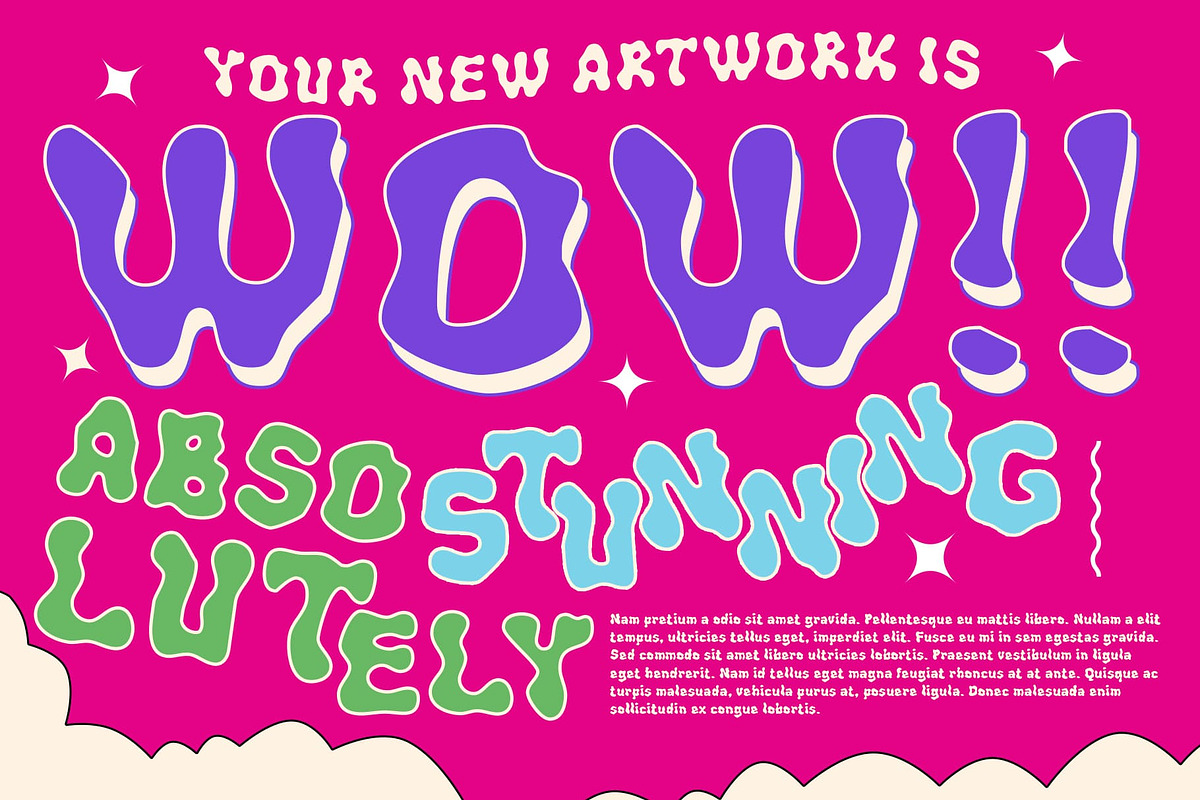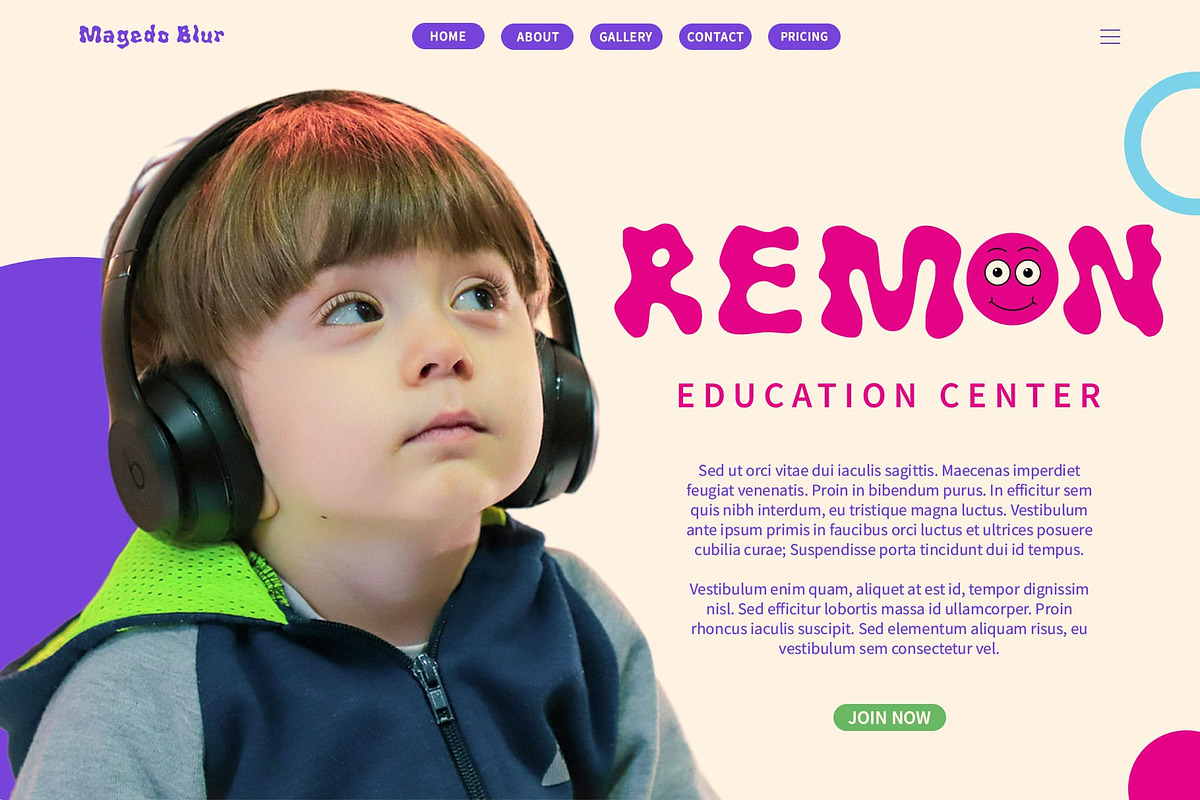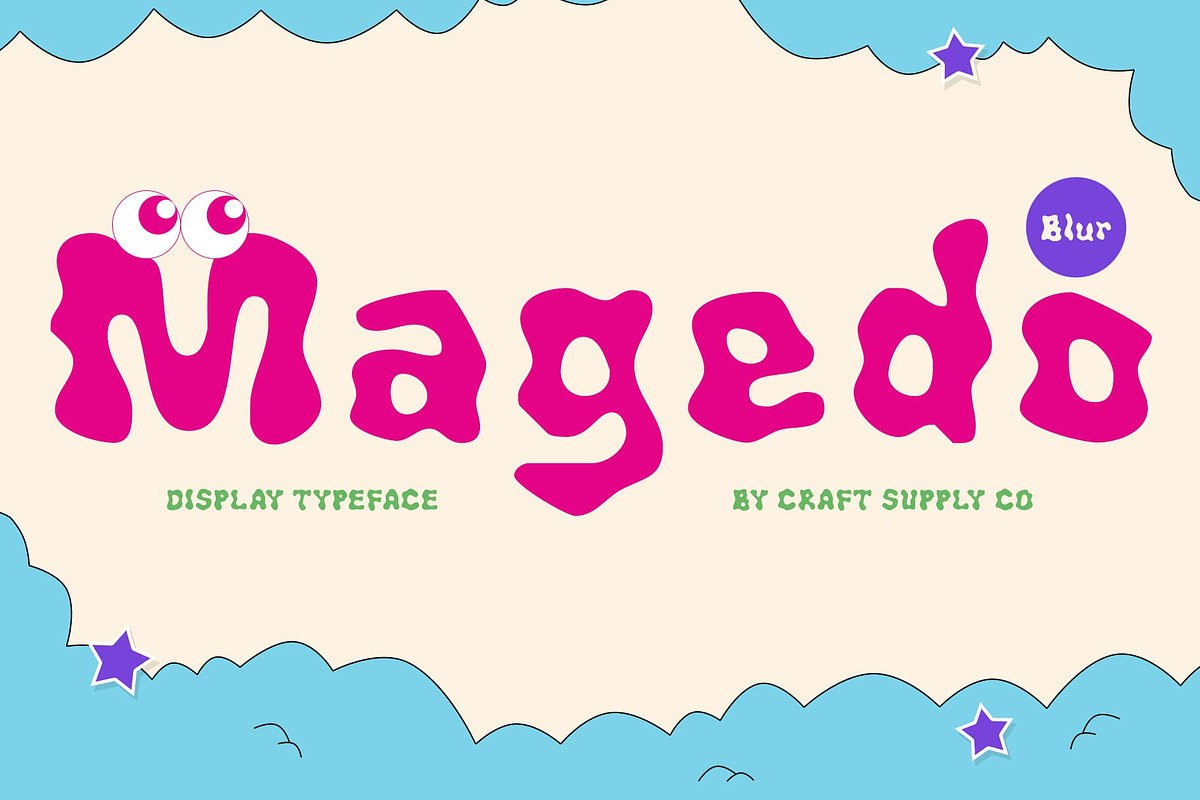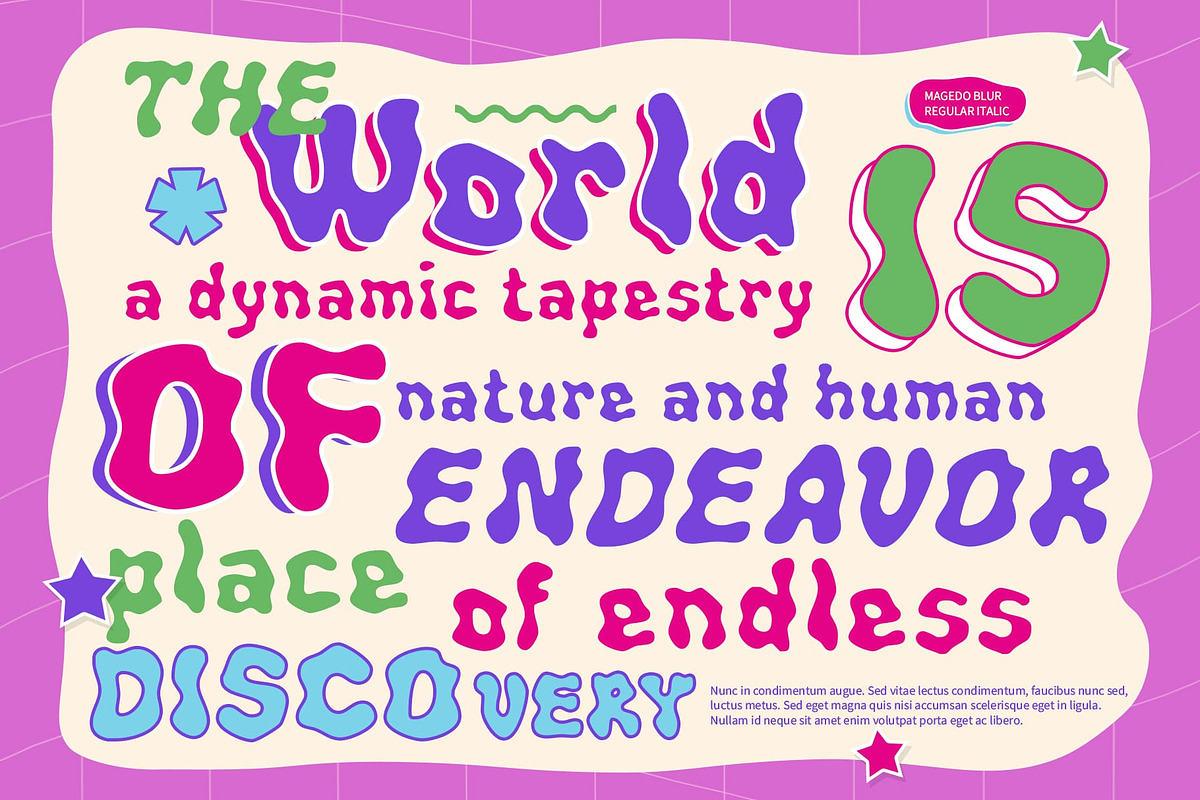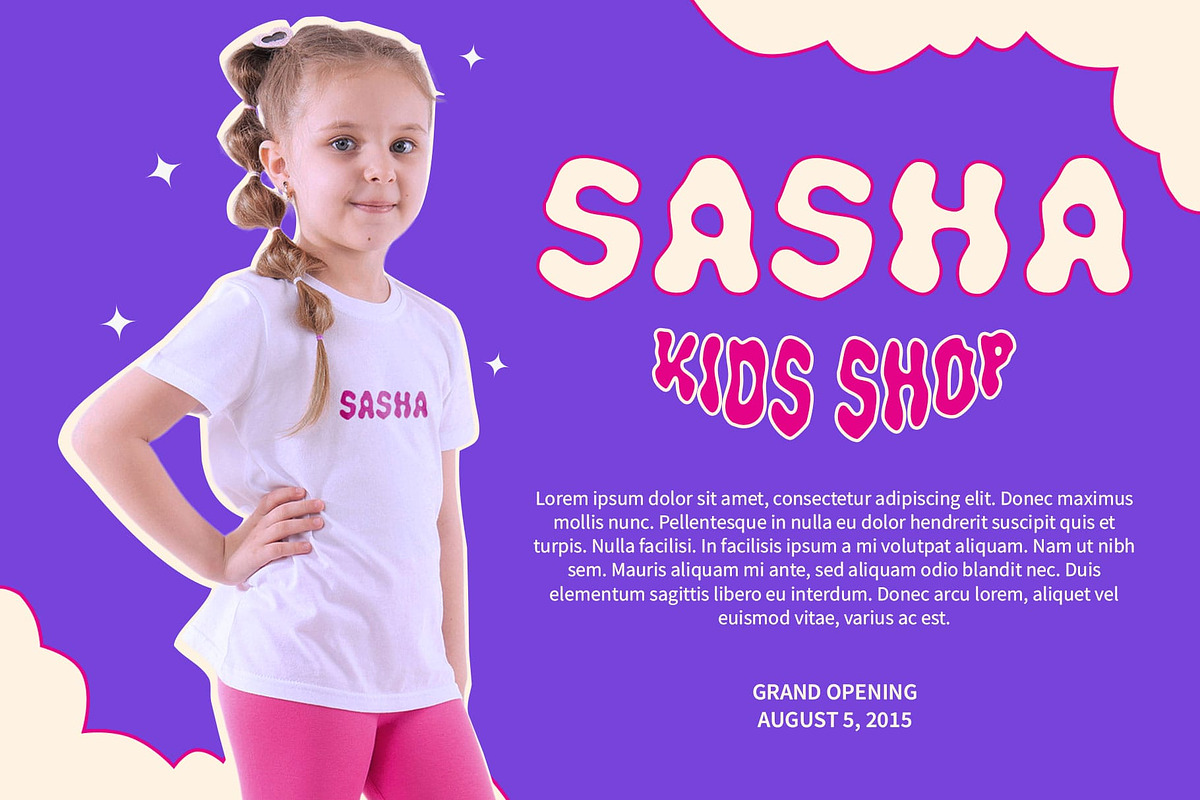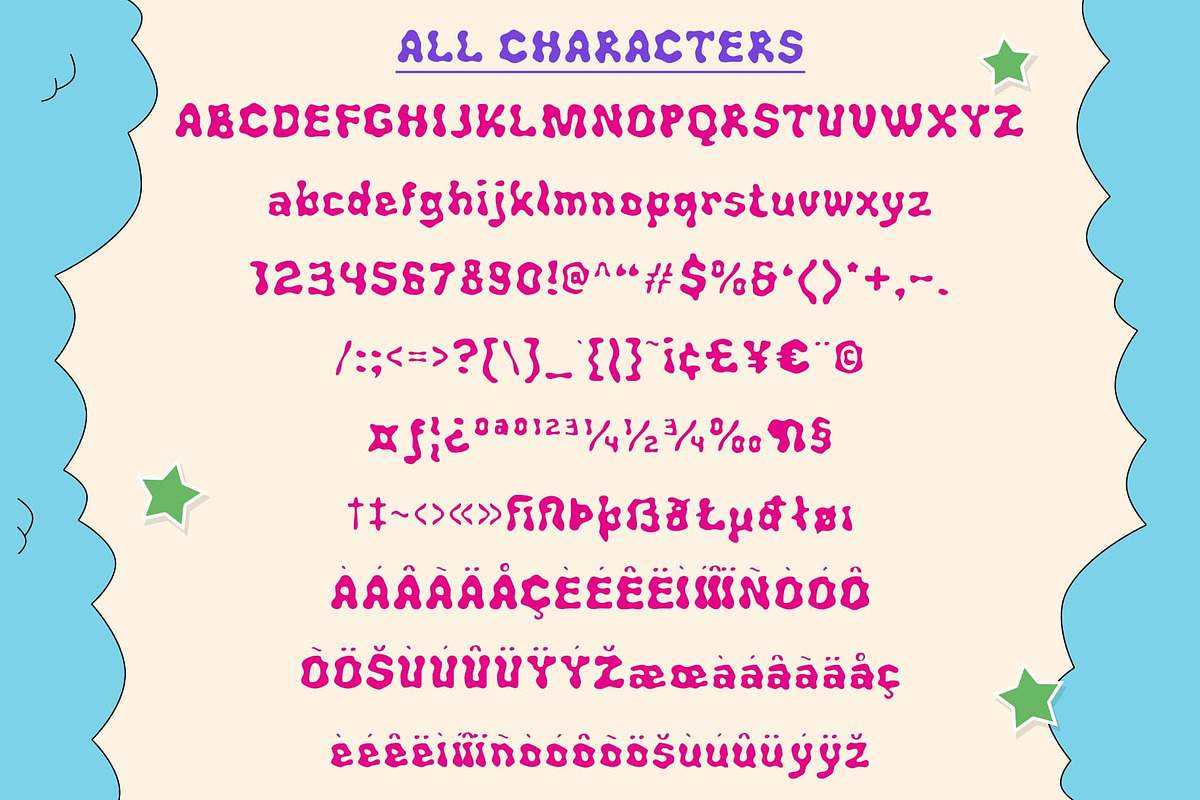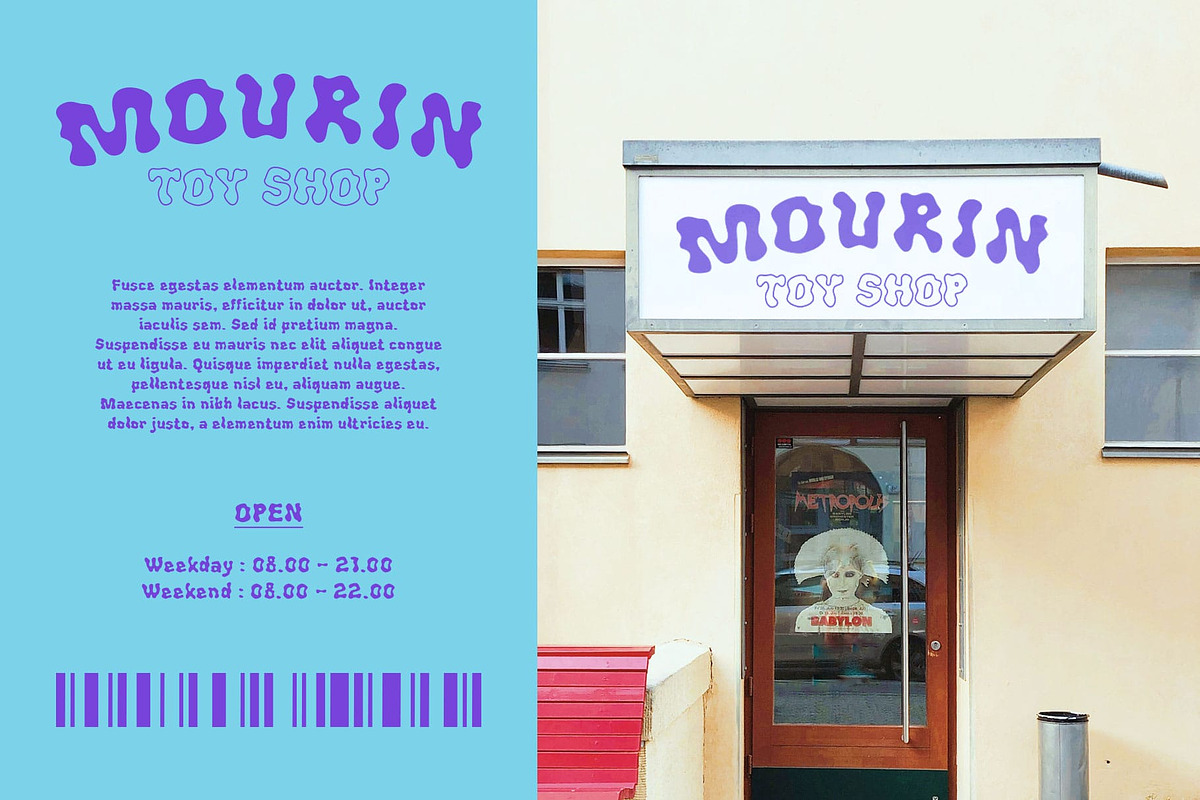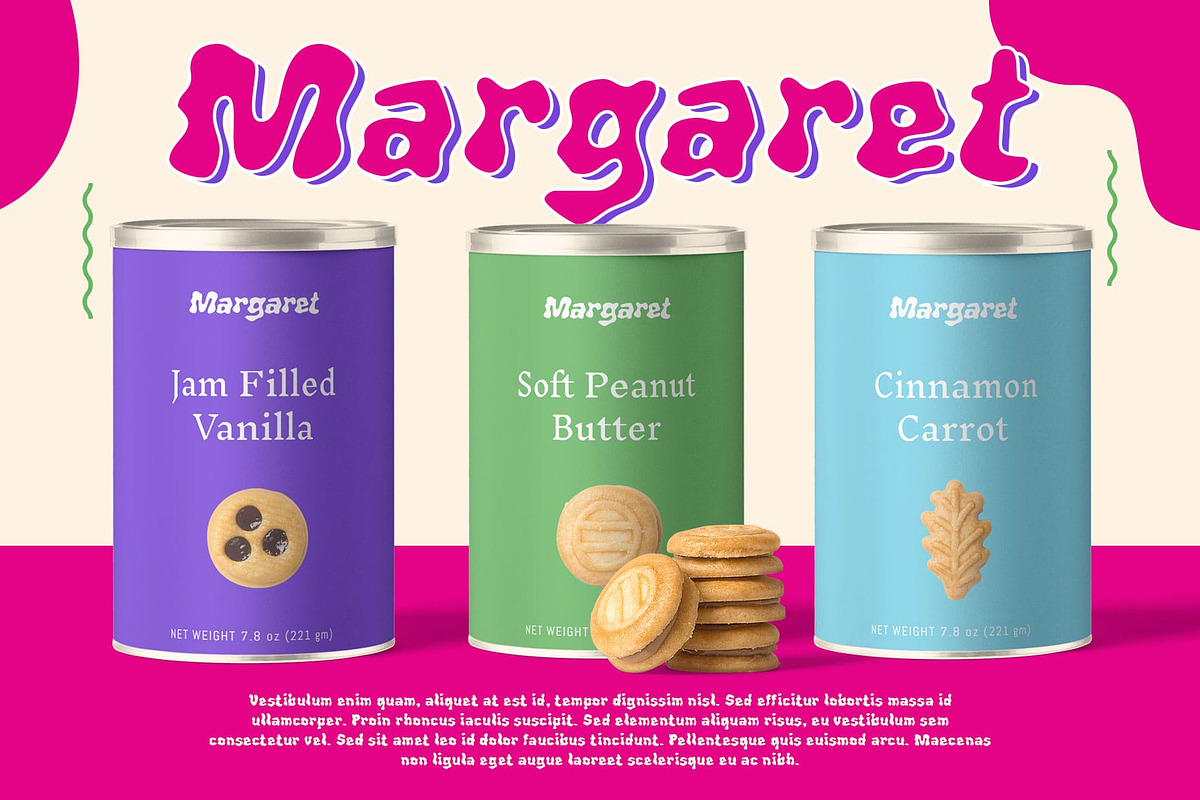
Magedo Blur
Magedo Blur Font: Psychedelic Display Font with Vibrant Blur Effect
1960s-Inspired Psychedelic Design Magedo Blur is a display font featuring a unique and vibrant psychedelic design, drawing inspiration from the iconic 1960s psychedelic music era. The font’s bold, expressive style showcases swirling and wavy shapes, evoking the artistic and musical spirit of the time. Its psychedelic design creates a visually striking and captivating appearance that stands out in any design.
Dynamic Visual Depth with Blur Effect The blur effect in Magedo Blur adds an extra layer of visual depth, enhancing the psychedelic elements and creating a sense of movement and energy. This dynamic effect complements the swirling shapes, blending artistic and musical influences into a cohesive, eye-catching design. The result is a font that exudes creativity and excitement.
Ideal for Bold, Creative Designs Perfect for designs requiring a bold and unique touch, Magedo Blur excels in applications that aim to highlight creativity and vibrancy. Whether used for music posters, event promotions, or other creative projects, this font provides a funky and retro feel that captures attention and adds a distinctive flair to the design.